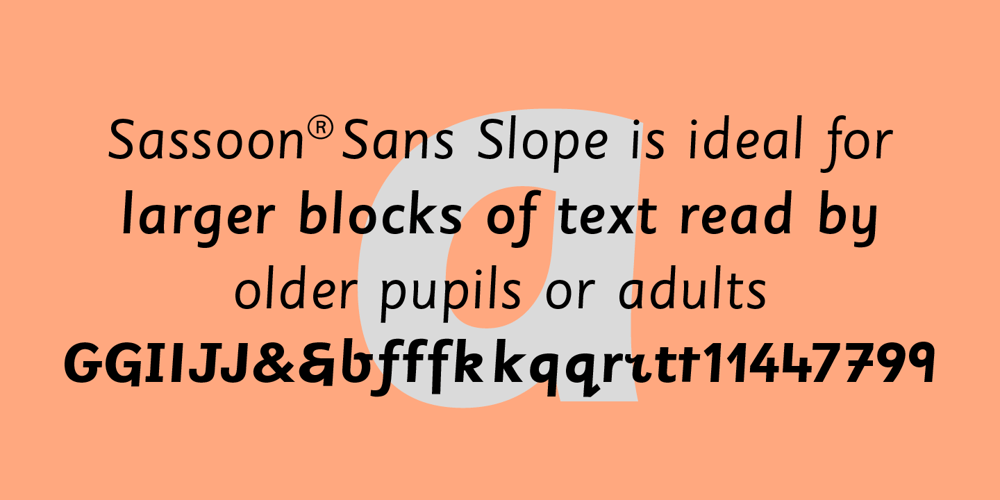
Sassoon Sans Slope Font Family was designed by Rosemary Sassoon and published by Sassoon-Williams. Sassoon Sans Slope contains 3 styles and family package options. An elegant sloping sans serif typeface with generous ascenders and descenders, retaining legibility down to small sizes. The slight slant makes it ideal for larger blocks of text. Legible letterforms for the computer age. Many alternative letters are included in each font. A new concept in Sans Serif typefaces. The clear, friendly letterforms and extended ascenders and descenders that together promote fast word recognition, designed originally for Sassoon Primary are now modified to suit adult users. Slightly sloping letterforms make the reading of blocks of print easier. Ideal for older pupils, perhaps at Secondary school, or adults, who no longer require ‘exit strokes’ to clump the letters together. Free to download resources: How to access Stylistic Sets of alternative letters in these fonts